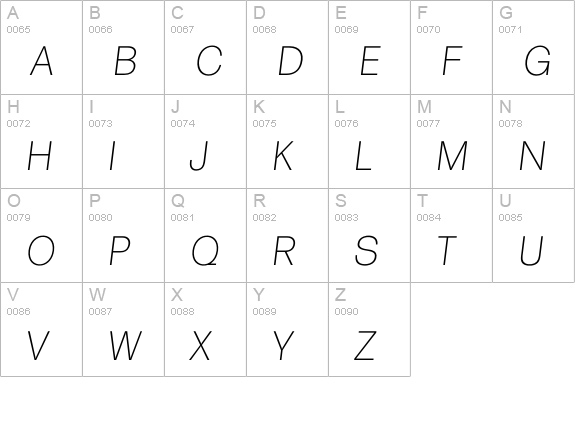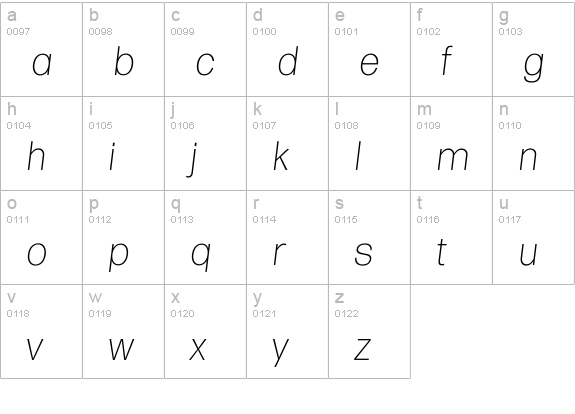
Introducing the remarkable Iformula Xlight font, a sleek and modern typeface that effortlessly combines elegance with a touch of technological sophistication. Designed with precision and attention to detail, this font embodies the perfect balance between contemporary design and timeless appeal. Featuring ultra-thin letterforms and clean lines, Iformula Xlight adds a sense of refinement and finesse to any project it graces. Its delicate yet legible characters make it ideal for a wide range of applications, from branding and logo design to editorial layouts and web content. What sets Iformula Xlight apart is not only its exceptional design but also its accessibility. This font is available for free download exclusively at FontsMarket.com, allowing designers, creatives, and enthusiasts to enjoy its beauty and versatility without any cost. Now, you can effortlessly elevate your projects with a font that exudes sophistication and professionalism, all while being freely accessible at your fingertips. Whether you're designing a sleek website, creating an eye-catching advertisement, or crafting a unique corporate identity, Iformula Xlight is the perfect companion to help you achieve your creative vision. Its versatility and elegance make it an excellent choice for both digital and print mediums, ensuring your message is delivered with clarity and impact. With Iformula Xlight, you can truly showcase your creativity and stand out from the crowd. Its minimalist yet distinctive design will captivate your audience and leave a lasting impression. So why wait? Explore the world of Iformula Xlight today and experience the seamless blend of style and functionality, all at no cost, thanks to its free availability at FontsMarket.com.